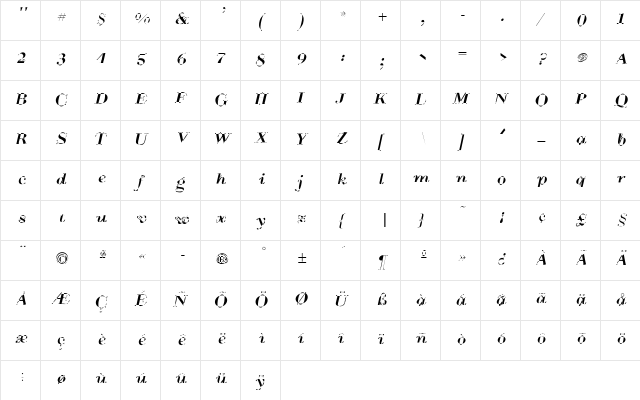
Grind Regular
Design Context for Grind Typeface
Grind takes a measured approach to typography — its balanced proportions and neutral character make it a reliable workhorse for both digital and print work.
Pro Tip: Use Grind in both headline and body roles to test its range before committing to a single application.